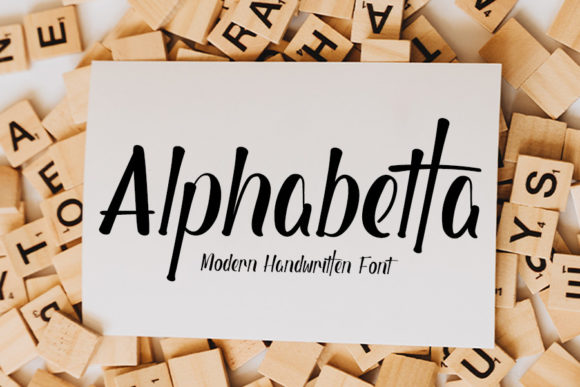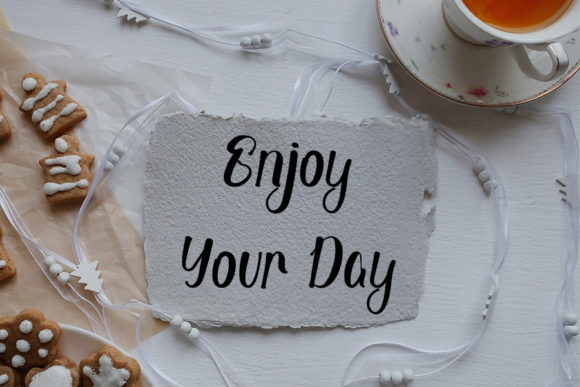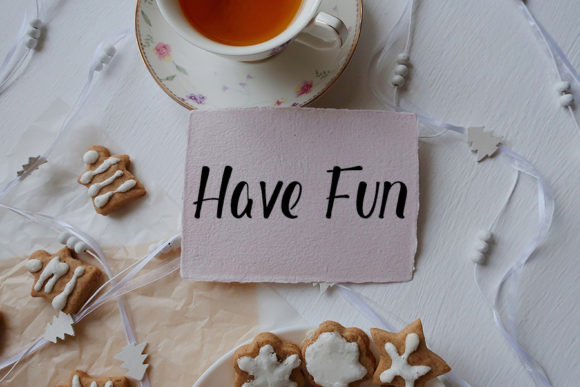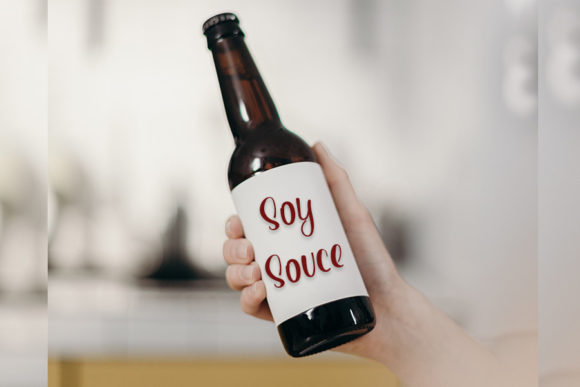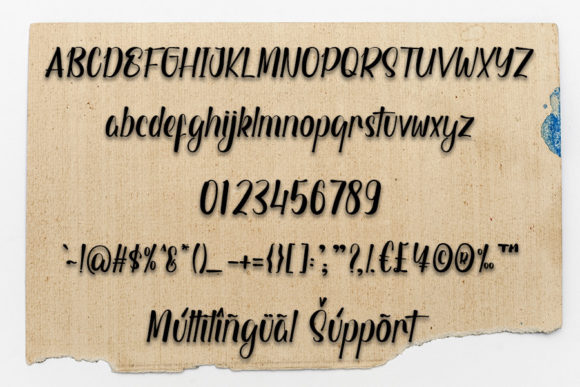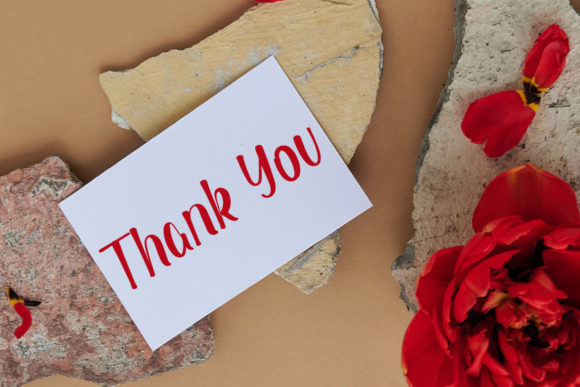
Alphabetta Font
Alphabetta font, with its stylish and bold script font, adds a contemporary flair to any design project it graces. Crafted with precision and flair, this handwritten typeface exudes confidence and character, making it an excellent choice for a wide range of creative applications.
At the heart of Alphabetta font lies its bold and stylish script design, characterized by strong strokes and refined curves. Each letter is meticulously crafted to convey a sense of modernity and sophistication, creating a visually captivating arrangement that draws the eye.
One of the defining features of Alphabetta font is its versatility. Whether used for branding, advertising, packaging, or editorial projects, it effortlessly captures attention and makes a bold statement in any context.
Moreover, Alphabetta font is designed with usability in mind. Its well-crafted letterforms ensure clarity and readability, while its compatibility with various design software makes it accessible to designers of all levels.
In summary, Alphabetta font is a stylish and bold script typeface that brings contemporary elegance to any project. With its confident style and versatile application, it serves as a versatile addition to any designer’s toolkit. Let Alphabetta font be the perfect choice for infusing your designs with personality and flair, and watch as it elevates your creative projects to new heights.